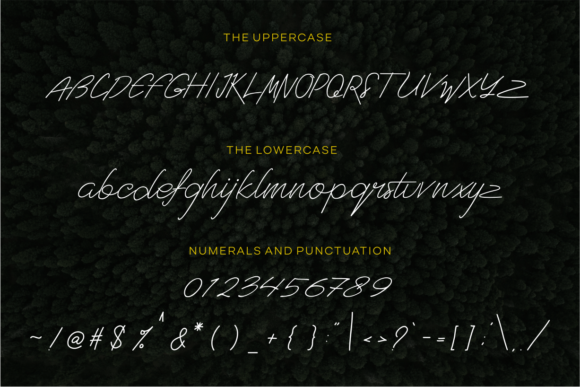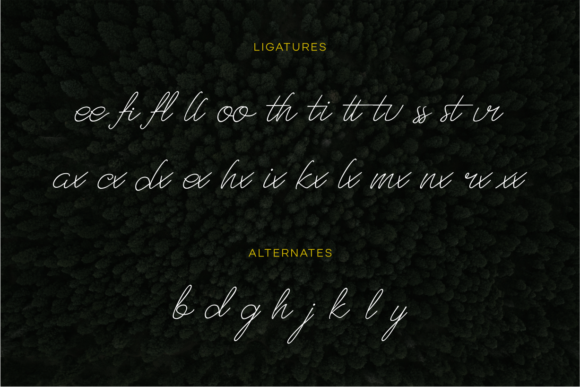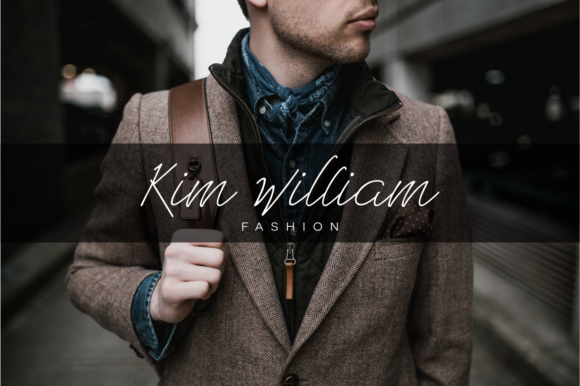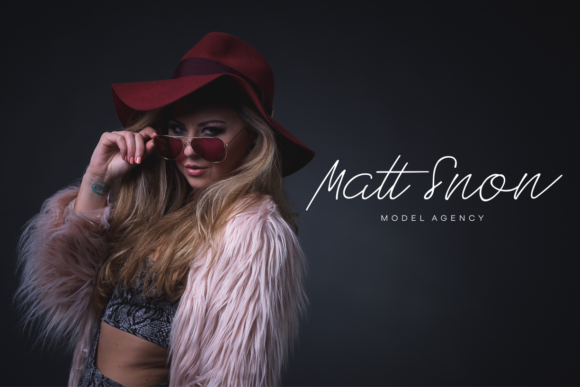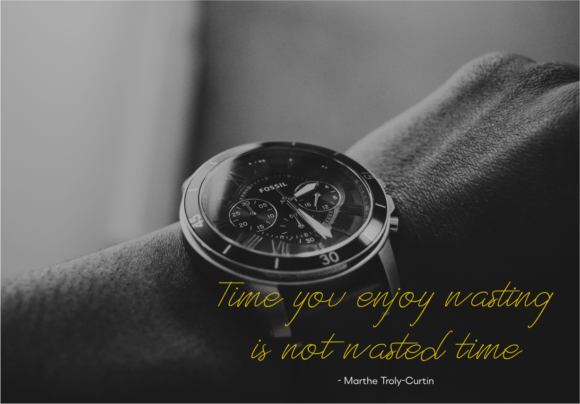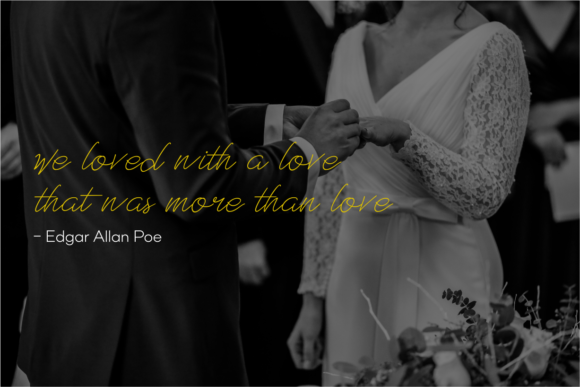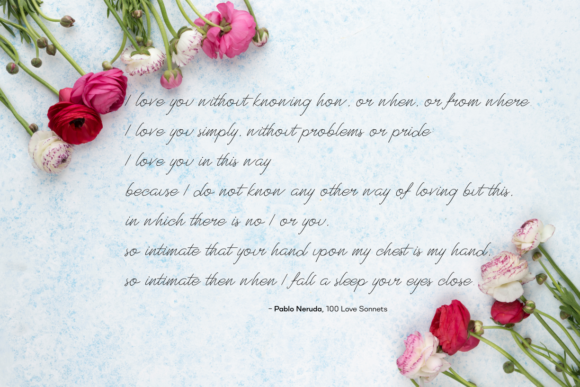
West Side Font
About West Side Font
West Side is an elegant and chic contemporary script font, ideal for use in a wide range of projects. This handwritten font looks ideal in print projects, and pairs well with serif types.